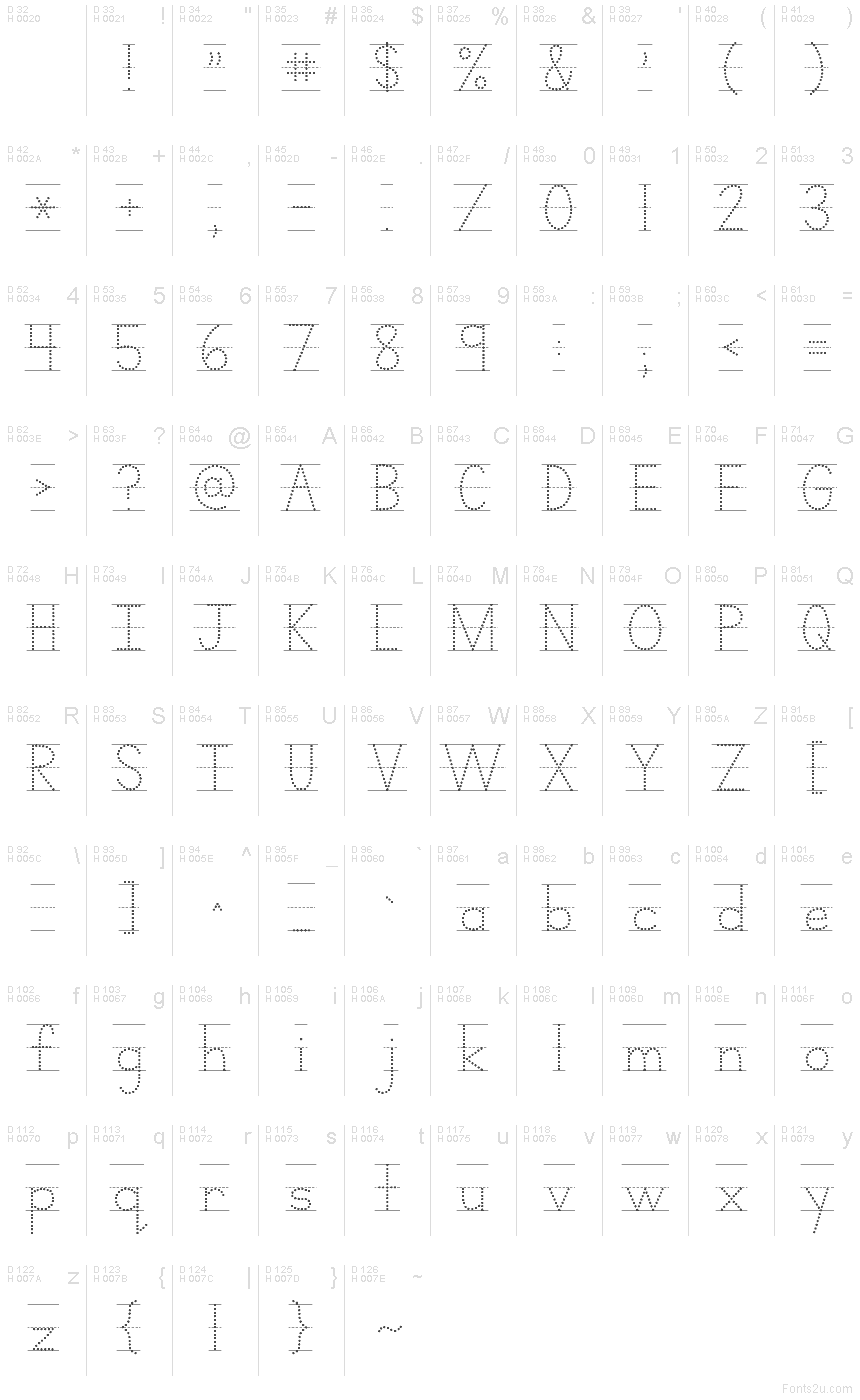
KG Teacher Created Dot Lined
KG Teacher Created Dot Lined font by Kimberly Geswein is a free dotted school script typeface in the KG Teacher Created family. Each letter is formed from tidy inky dots aligned to classroom guide lines, with friendly, open curves that encourage smooth tracing. The rhythm is even and forgiving, so little hands can follow along without jagged corners or confusing flourishes.
Using KG Teacher Created Dot Lined, teachers and parents can whip up handwriting worksheets, trace-and-write pages, early literacy posters, task cards, homeschooling packets, and center labels that feel truly classroom-ready. This free font shines on printable practice sheets and interactive notebooks where clarity matters most. Pair it with a clean rounded sans for headings to keep instructions crisp while the dots do the teaching.